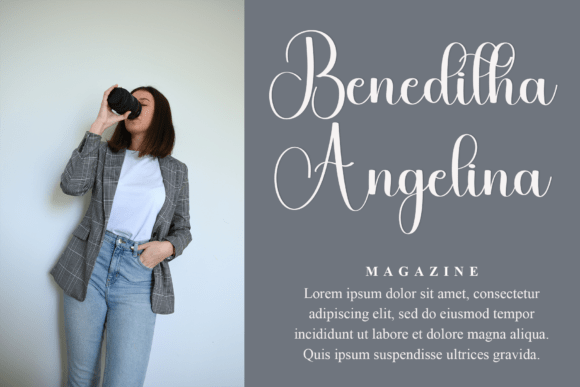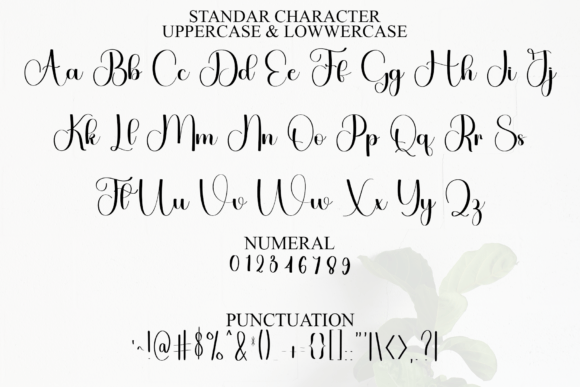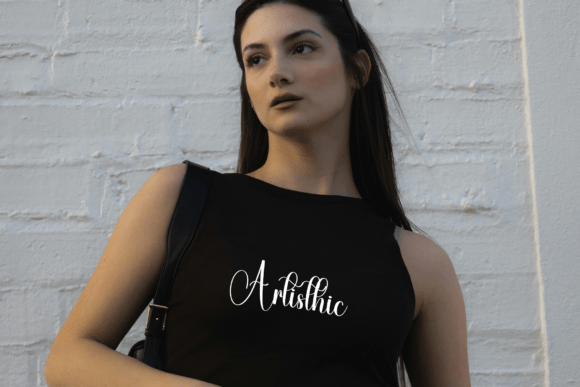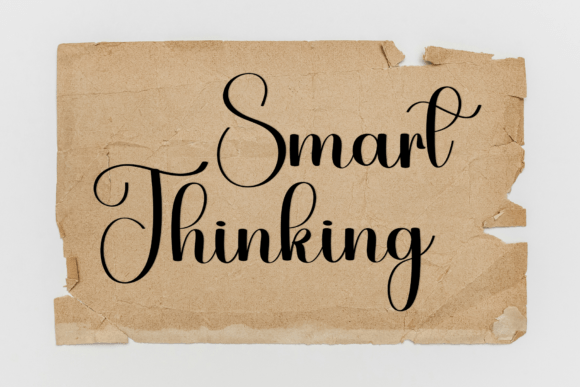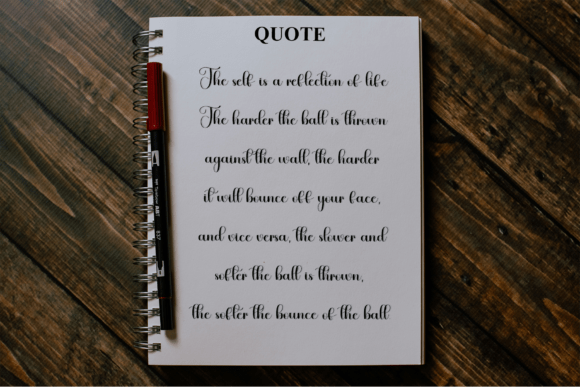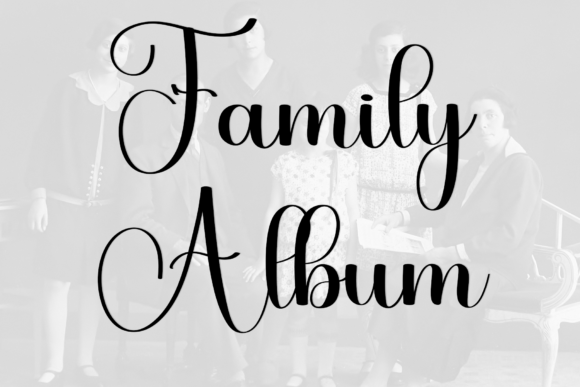
Introduction to Journal Family Font
As you sit down to create your holiday cards or gift tags, do you ever find yourself stuck for the perfect font to capture the magic of the season? The search for that perfect design resource can be a daunting task, but fear not, dear designers! We’ve got just the thing to bring some cheer to your creative project – the enchanting Journal Family Font.
With its whimsical flair and decorative elements, this high-quality font is sure to add a touch of nostalgia to your designs. Whether you’re looking for a free download or a premium font to elevate your projects, Journal Family Font is the perfect choice. And with its transparent background, you can easily layer it with other design elements to create a truly unique look.
As a valuable resource for designers, Journal Family Font offers a wide range of glyphs and ligatures to help you create stunning holiday-themed projects. So why not let the magic of this beautiful font shine through in your next design? With its PUA encoding, you can access all of its amazing features with ease – making it a must-have for any serious designer.
Key Features of Journal Family Font
- High-quality, elegant design perfect for creative projects and design resources.
- Features a transparent background, allowing for easy layering and composition in design projects.
- Includes a wide range of glyphs and characters, making it suitable for both personal and commercial use.
- Designed with a unique, handwritten aesthetic that adds a touch of personality to any design.
Honest Review: Journal Family Font
I recently stumbled upon the Journal Family Font, a versatile design resource that has been a game-changer for my creative project. As a designer, I’m always on the lookout for high-quality fonts that can elevate my work, and this one did not disappoint.
- ✨ The Journal Family Font is incredibly versatile, suitable for a wide range of design projects, from editorial and publishing to branding and advertising.
- ✨ The transparent background allows for seamless integration with other design elements.
- ⚠️ The font is not as customizable as some other options on the market, which may be a drawback for designers who require a high degree of control.
- ⚠️ The font’s weight and style options are somewhat limited, which may restrict its use in certain design contexts.
Overall, I’m thoroughly impressed with the Journal Family Font. Its high quality, versatility, and ease of use make it an excellent addition to any designer’s toolkit. While it may not be perfect, it’s a solid choice for designers looking for a reliable, high-quality font for their creative projects.
Journal Family Font
Using Journal Family Font in Creative Projects
Getting the Most Out of Journal Family Font
To maximize the Journal Family Font’s potential, experiment with different font sizes, colors, and combinations. This will help you create visually appealing and engaging designs for your project. Additionally, use the font in conjunction with other high-quality design elements to elevate your creative project.
The Journal Family Font is ideal for a wide range of creative projects, including:
- Brochures and marketing materials
- Social media graphics and advertisements
- Editorials and publications